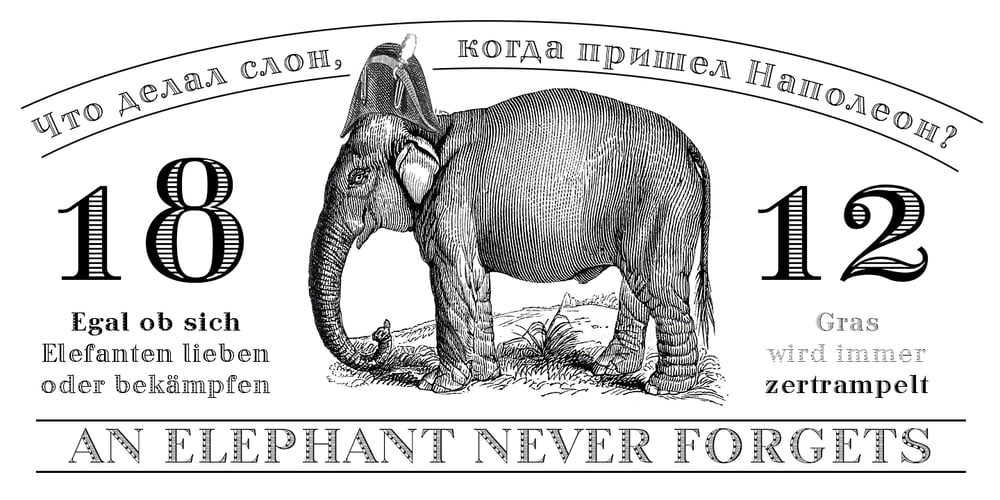
1812 Font Family was designed by Viktor Kharyk, Konstantin Golovchenko and published by Apostrof. 1812 contains 14 styles and family package options. ‘1812’ type family is a revival and further development of the typeface ‘1812’ by Lehmann Type Foundry (St. Petersburg). It was created for the centenary of the French invasion of Russia, known in Russia as the Patriotic War of 1812 along the lines of decorative engraved inscriptions and ornamented typefaces of that time, presumably by the artist Alexandre Benois. It was used mainly for the decoration of luxurious elegant publications. Later, in 1917, this typeface was used on the Russian Provisional Government banknotes. In the Soviet period of time ‘1812’ appeared to be one of the few typefaces included in the first Soviet type standard OST 1337. It was produced for manual typesetting until the early 1990s. This typeface could be seen on Soviet letterheads, forms, posters and even air tickets.The digital version development was launched in 2010. The original version was supplemented with lowercase letters and alternative symbols, the extended Latin and Cyrillic alphabets were fully supported. The font was evolved into a family of 14 decorative styles which can refine any design giving it a festive and elegant but at the same time strict and nostalgic look. Despite its decorative nature, ‘1812’ is perfectly readable in small emphasized text blocks due to its classic shape and careful spacing.